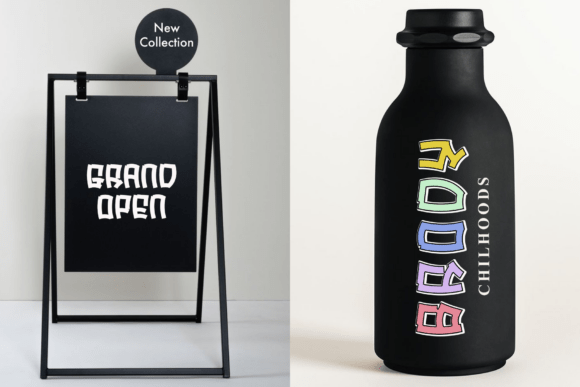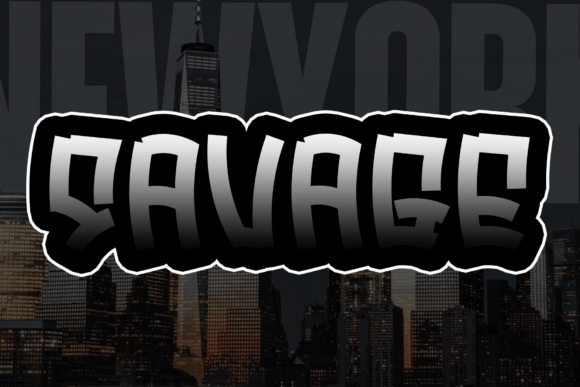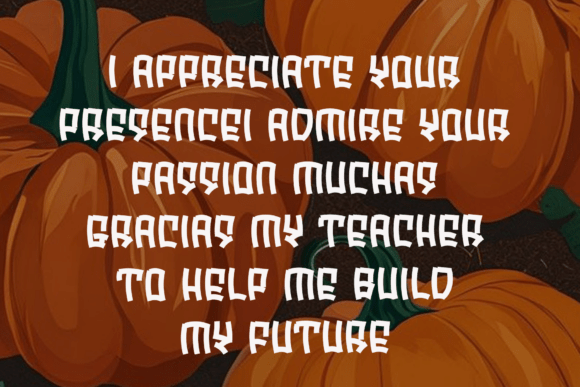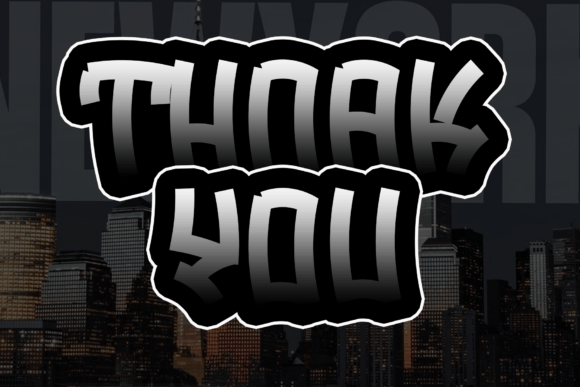
Unleash Your Creativity with Breaks Pumpkin Font
Are you tired of using the same old fonts for your designs? Look no further than the Breaks Pumpkin Font, a bold and modern display font that’s sure to make your projects stand out. With its edgy, chunky, and slightly aggressive feel, this font is perfect for designers and crafters who want to add a touch of urban energy to their work.
The Perfect Font for Headlines that Demand Attention
Breaks Pumpkin Font is designed to grab attention, with striking, blocky shapes and a geometric construction that makes it perfect for headlines that need to make a statement. Its bold and chunky design ensures that your text will be noticed, whether it’s on a logo, poster, apparel, or game title. The font’s modern and edgy vibe makes it ideal for projects that require a strong, impactful, and simple-yet-sophisticated look.
A Font that Mixes Streetwear, Urban Energy, and Playfulness
Breaks Pumpkin Font has a unique vibe that mixes streetwear, urban energy, and a touch of playfulness. This font is perfect for designers who want to add a bit of attitude to their work, without sacrificing sophistication. The font’s geometric construction and blocky shapes give it a modern and edgy feel, while its bold and chunky design ensures that it’s still easy to read.
Breaks Pumpkin Font is versatile and can be used for a variety of projects, including:
- Logos: Add a bold and edgy touch to your logo with Breaks Pumpkin Font.
- Posters: Create eye-catching posters that demand attention with this font.
- Apparel: Add a touch of urban energy to your apparel designs with Breaks Pumpkin Font.
- Game Titles: Make your game titles stand out with this bold and modern font.
- Any project that needs a strong, impactful, and simple-yet-sophisticated look.
Why Choose Breaks Pumpkin Font?
There are many reasons why you should choose Breaks Pumpkin Font for your next project. Here are just a few:
- Unique and eye-catching design: Breaks Pumpkin Font has a unique and eye-catching design that’s sure to make your projects stand out.
- Versatile: This font can be used for a variety of projects, from logos to posters to apparel.
- Easy to read: Despite its bold and chunky design, Breaks Pumpkin Font is still easy to read, making it perfect for headlines and titles.
- Modern and edgy vibe: This font has a modern and edgy vibe that’s perfect for designers who want to add a bit of attitude to their work.
Tips for Using Breaks Pumpkin Font
Here are a few tips for using Breaks Pumpkin Font:
- Use it for headlines: Breaks Pumpkin Font is perfect for headlines that demand attention.
- Experiment with different colors: This font looks great in a variety of colors, so don’t be afraid to experiment and find the perfect color for your project.
- Pair it with other fonts: Breaks Pumpkin Font can be paired with other fonts to create a unique and interesting look.
- Use it sparingly: Because of its bold and chunky design, it’s best to use Breaks Pumpkin Font sparingly to avoid overwhelming your project.
Breaks Pumpkin Font is a bold and modern display font that’s perfect for designers and crafters who want to add a touch of urban energy to their work. With its striking, blocky shapes and geometric construction, this font is ideal for headlines that demand attention. Its versatility and ease of use make it perfect for a variety of projects, from logos to posters to apparel. So why not give Breaks Pumpkin Font a try and see how it can elevate your designs?